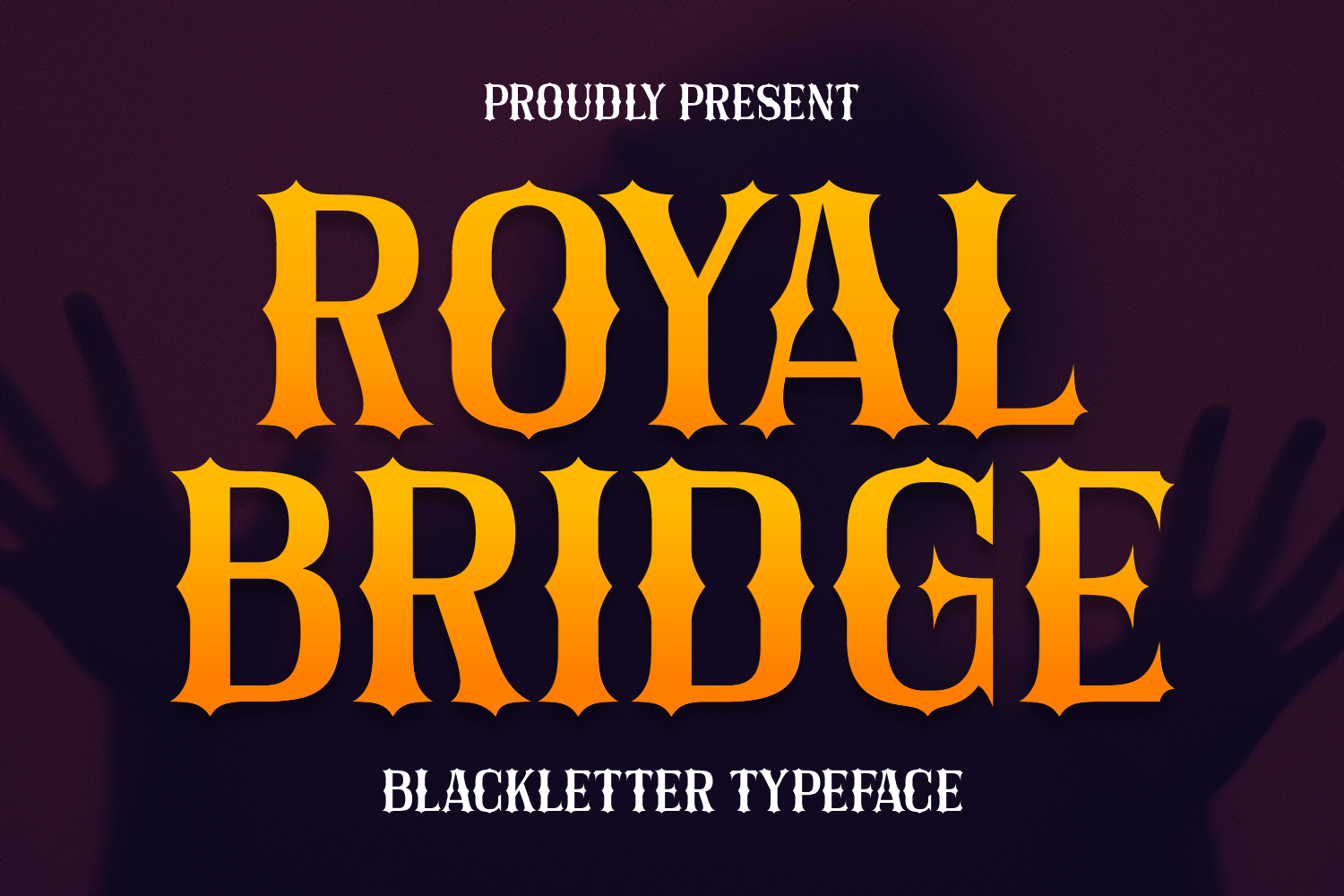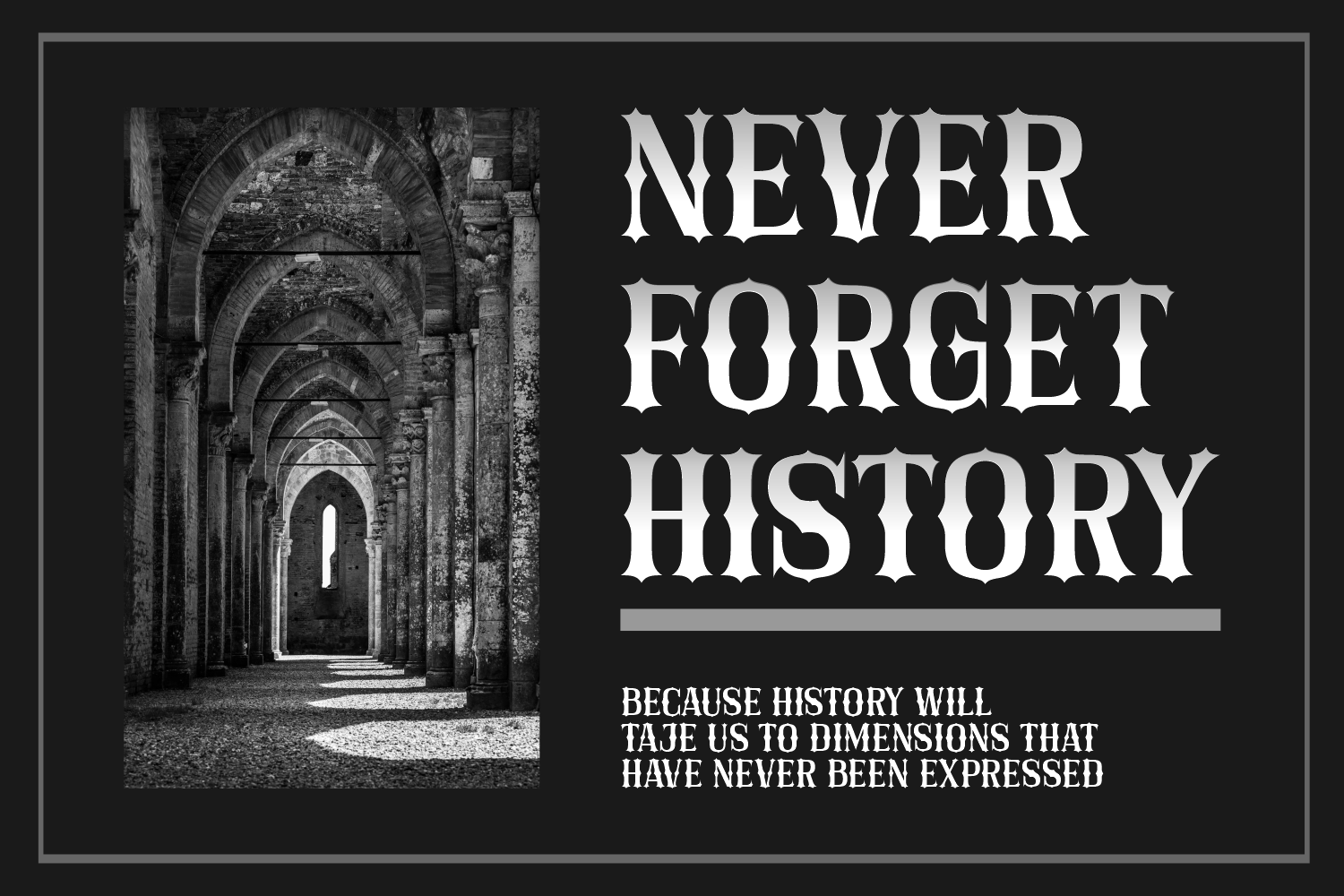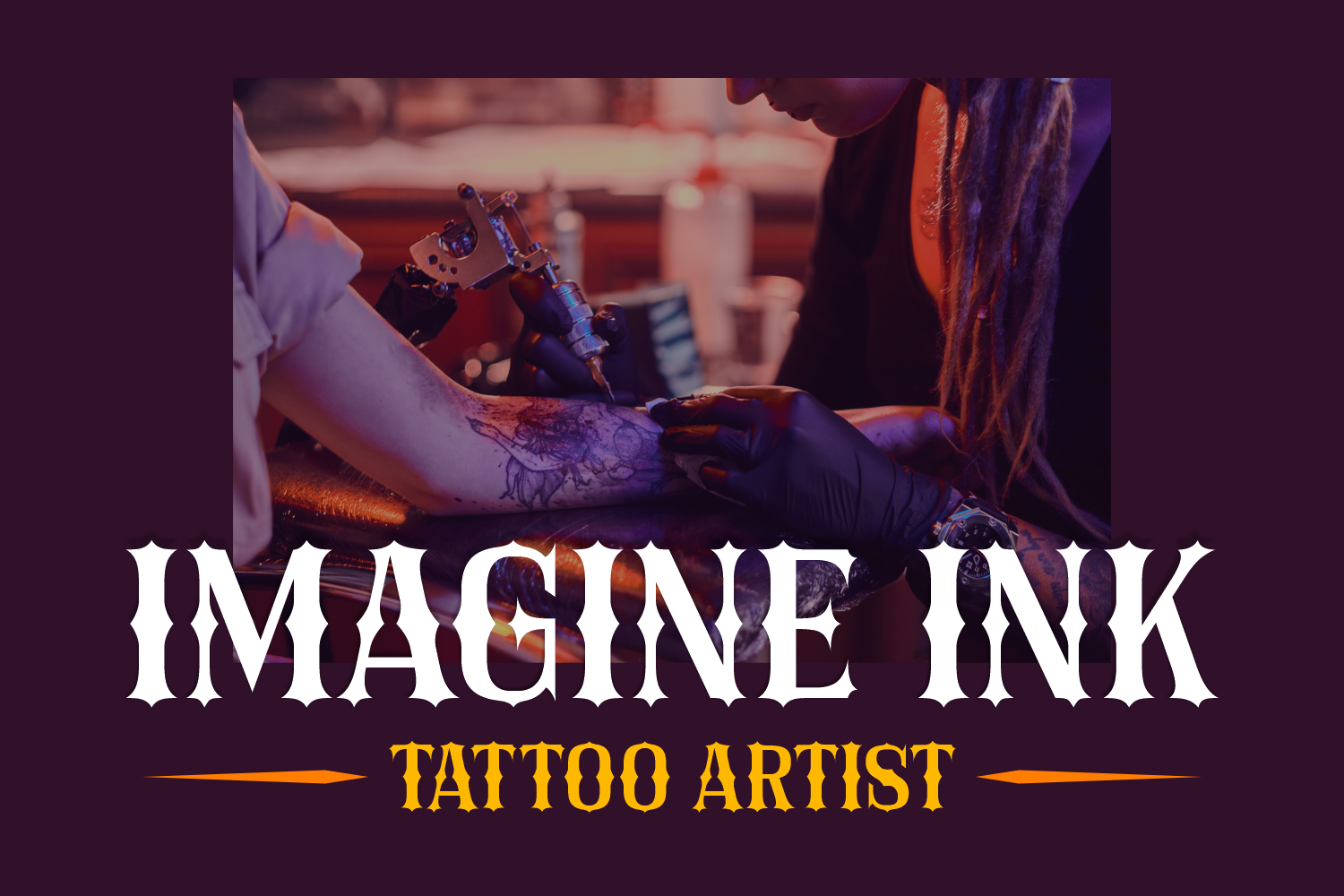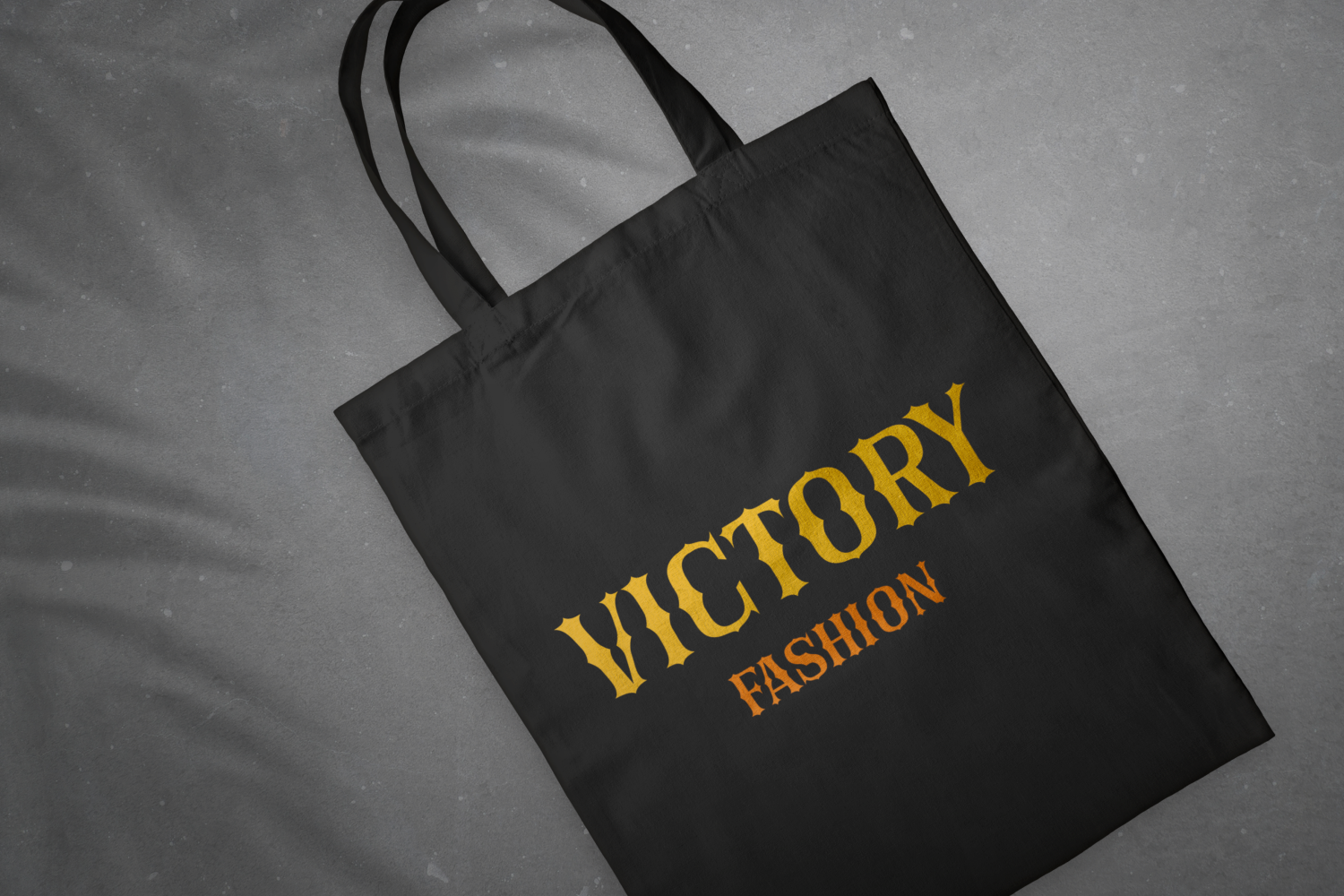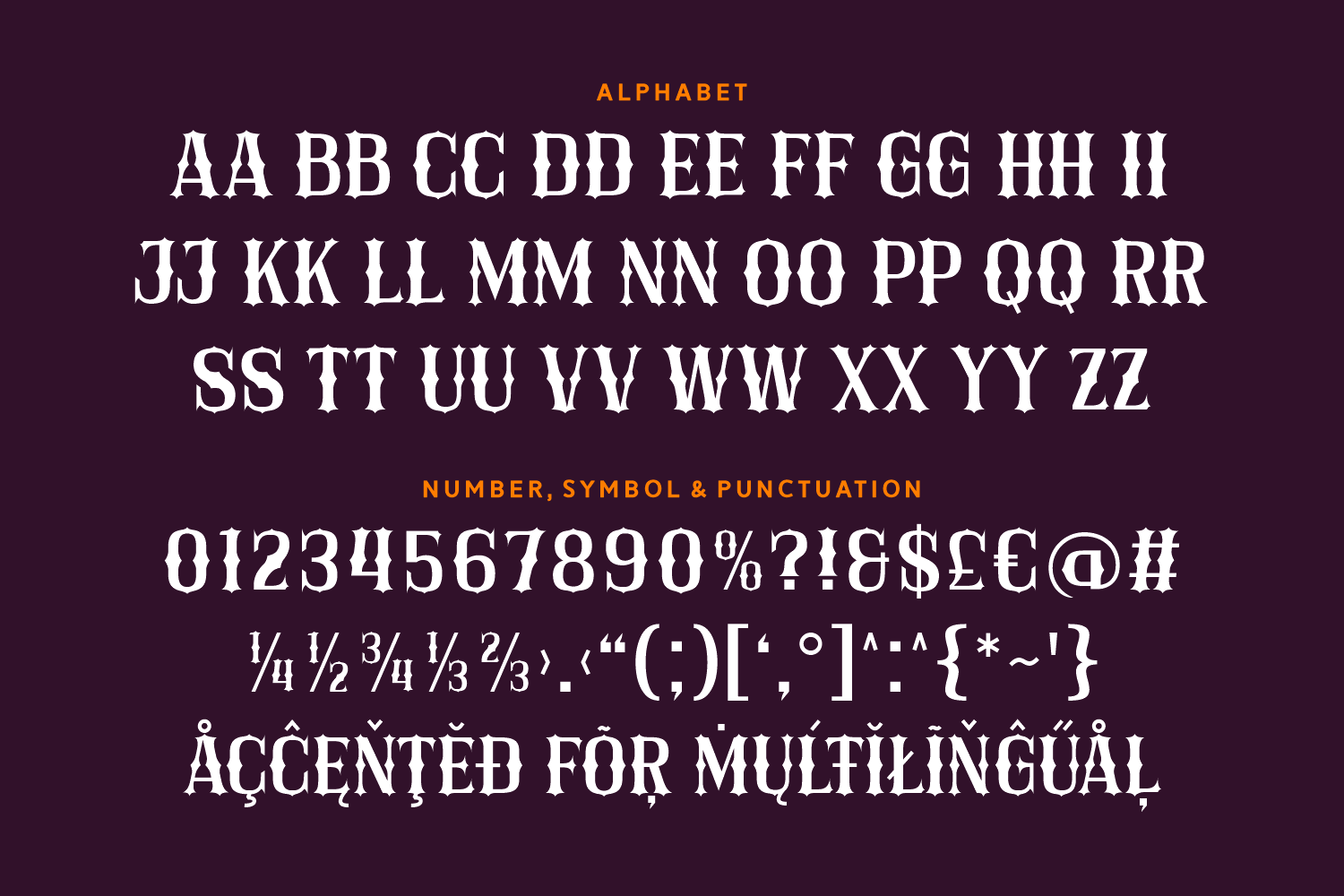
Royal Bridge is a bold, fiery blackletter typeface with a regal yet rebellious flair. Its sharp flared terminals and medieval spirit make it perfect for striking titles, horror posters, gaming logos, or anything that needs to stand tall and shout with vintage confidence.